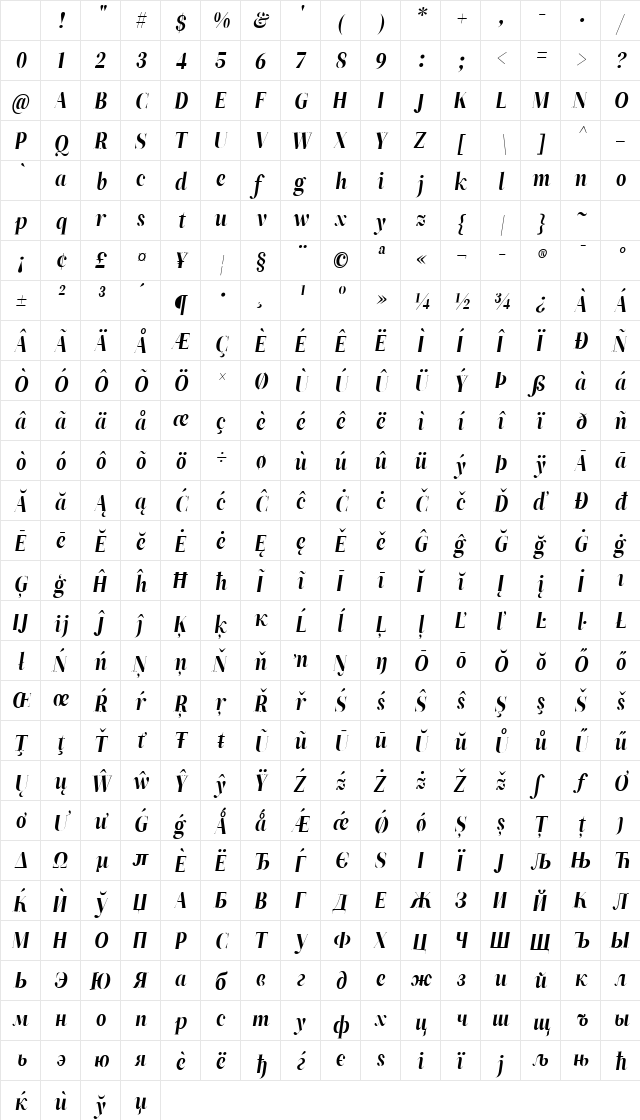
Complete ZT Neue Ralewe Bold Italic glyph index. Displaying only characters natively supported by ZT Neue Ralewe Bold Italic font.
ZT Neue Ralewe is a composed and adaptable typeface that performs quietly and consistently across a wide range of design contexts. The slanted form adds forward momentum and visual energy. Its bold stroke weight gives it real presence on the page.
Pro Tip: Use ZT Neue Ralewe for emphasis, pull quotes, and subheadings where its slanted energy can add rhythm to the layout.